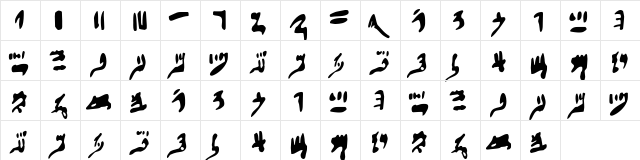
Hieratic Numerals Regular
| Foundry | David Kerkhoff |
| Designer | David Kerkhoff |
| Year | 2010 |
Design Context for Hieratic Numerals Typeface
Hieratic Numerals takes a measured approach to typography — its balanced proportions and neutral character make it a reliable workhorse for both digital and print work.